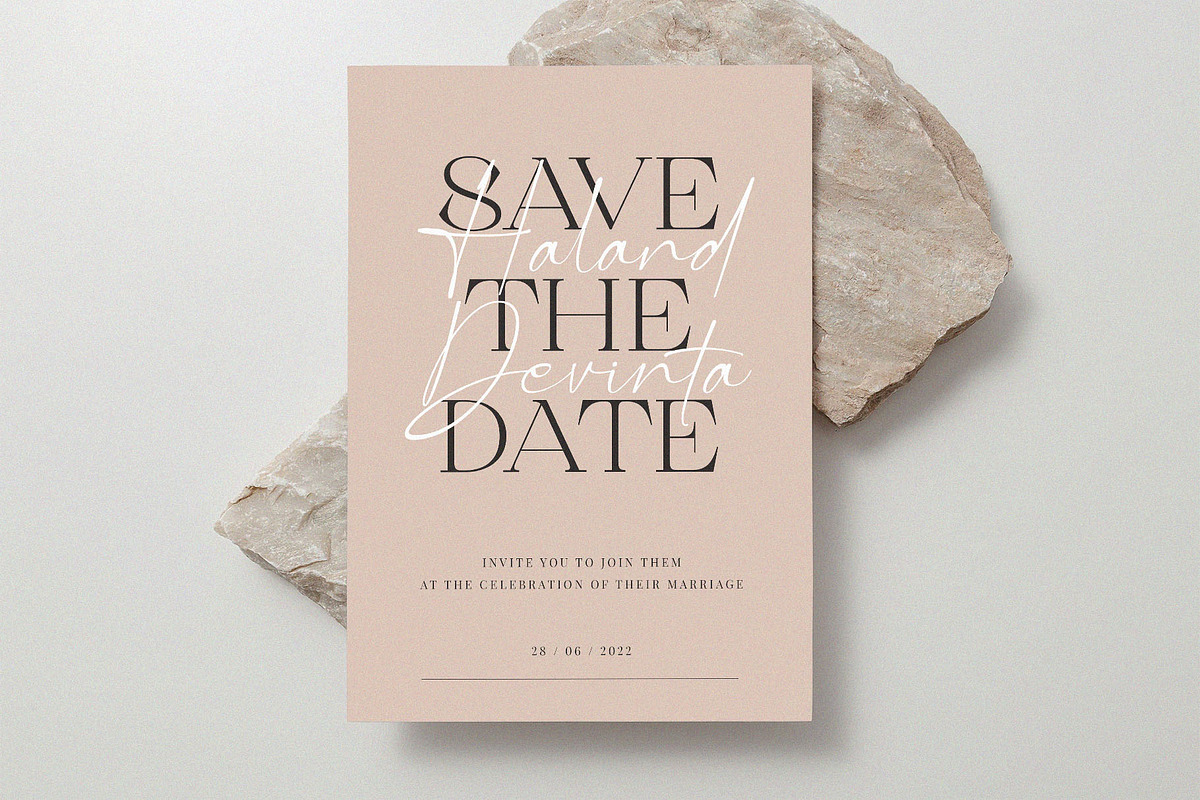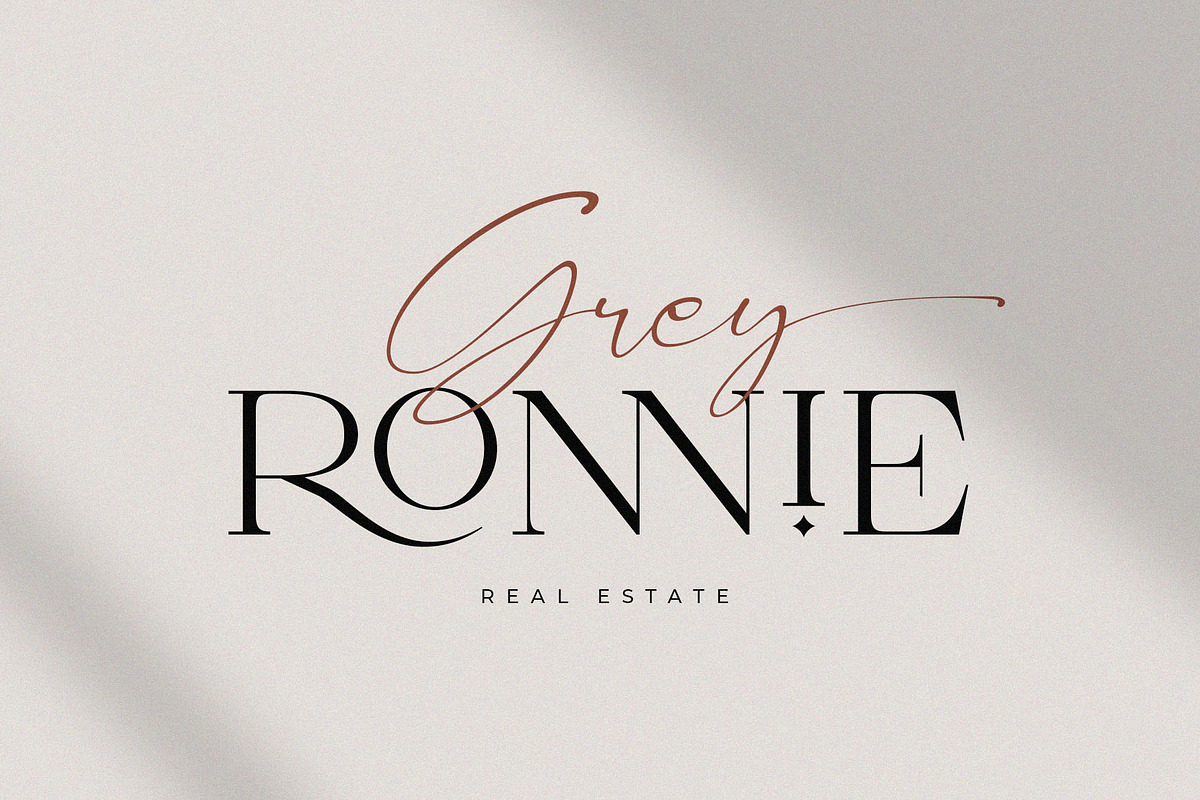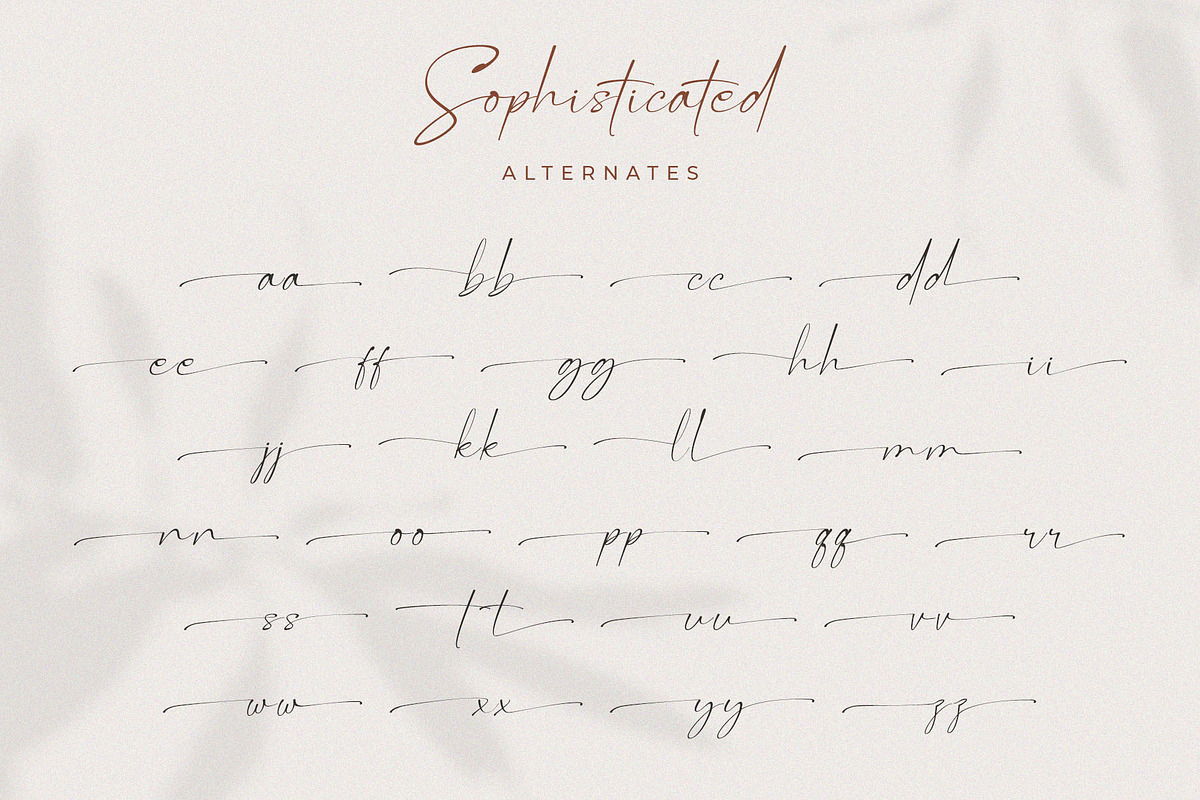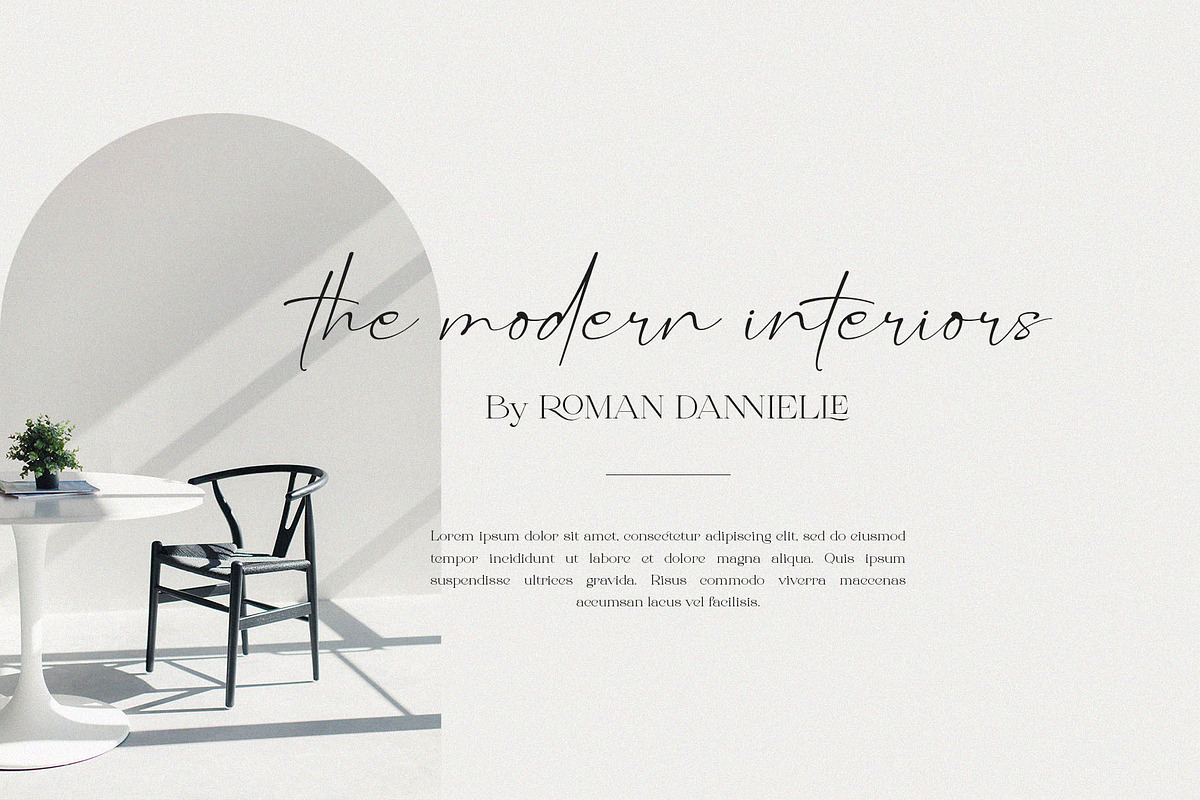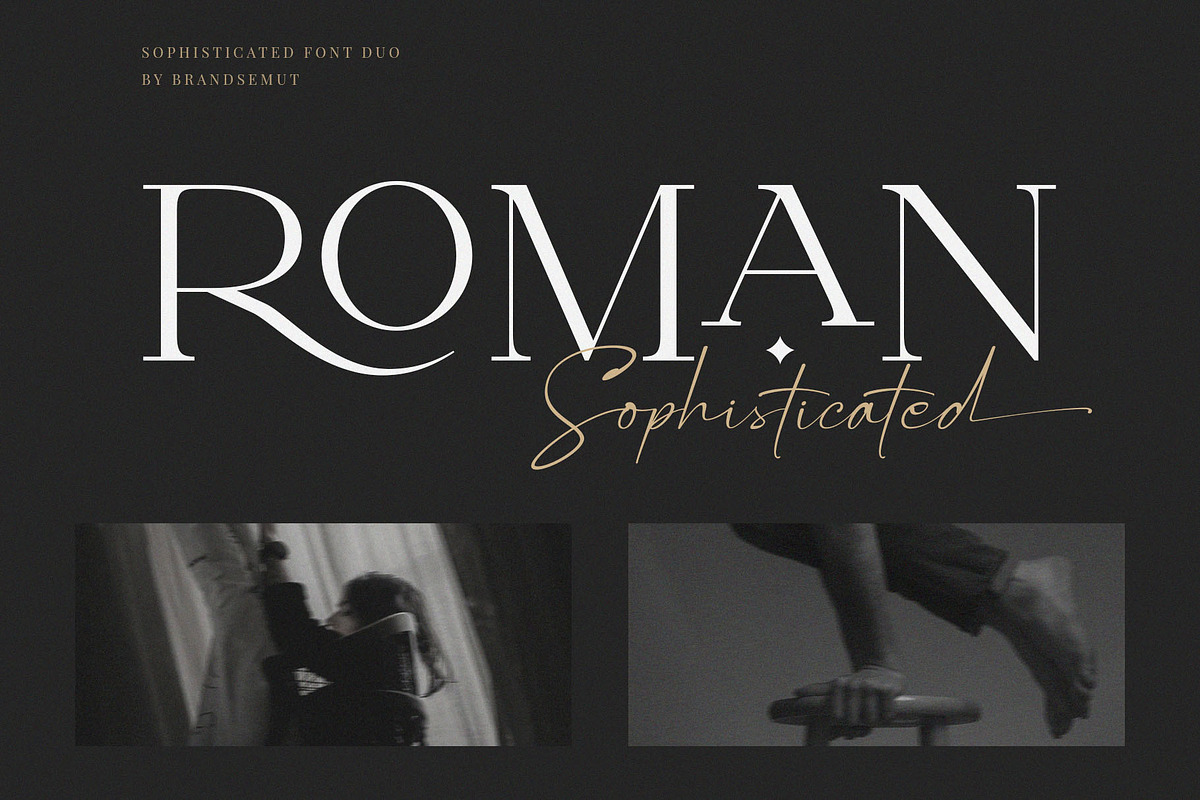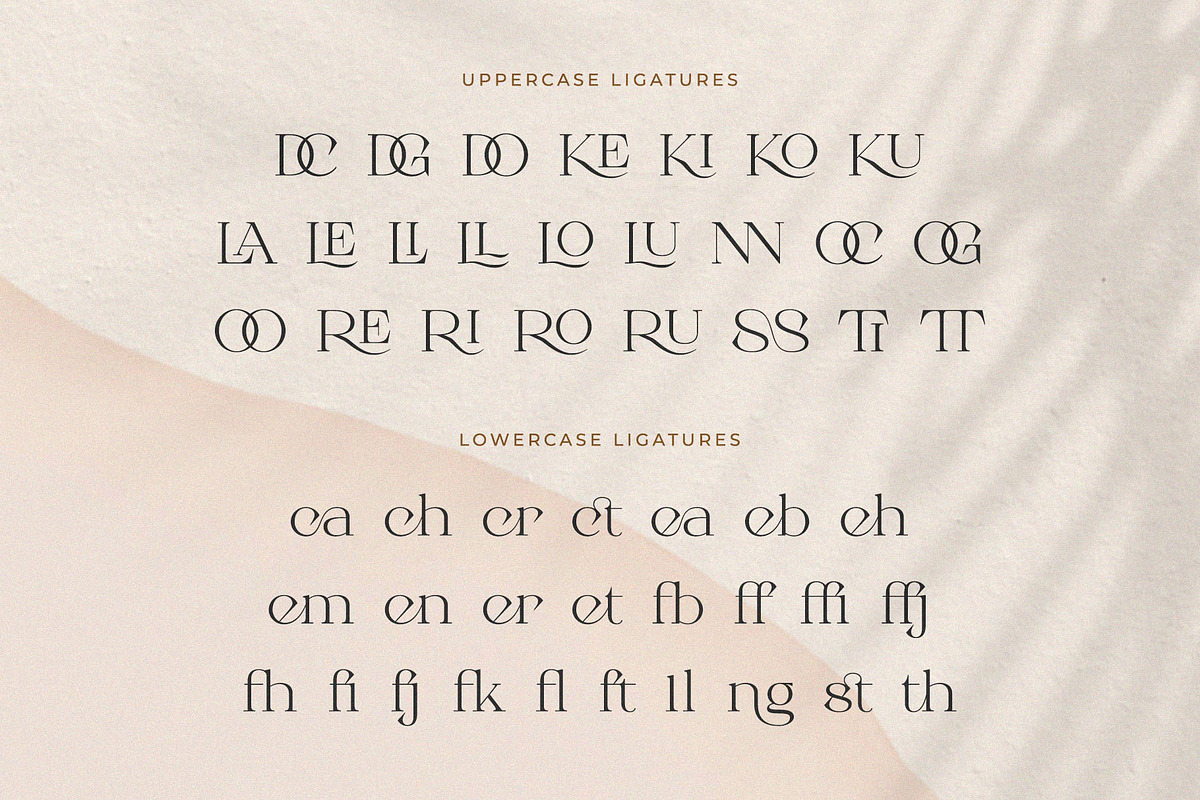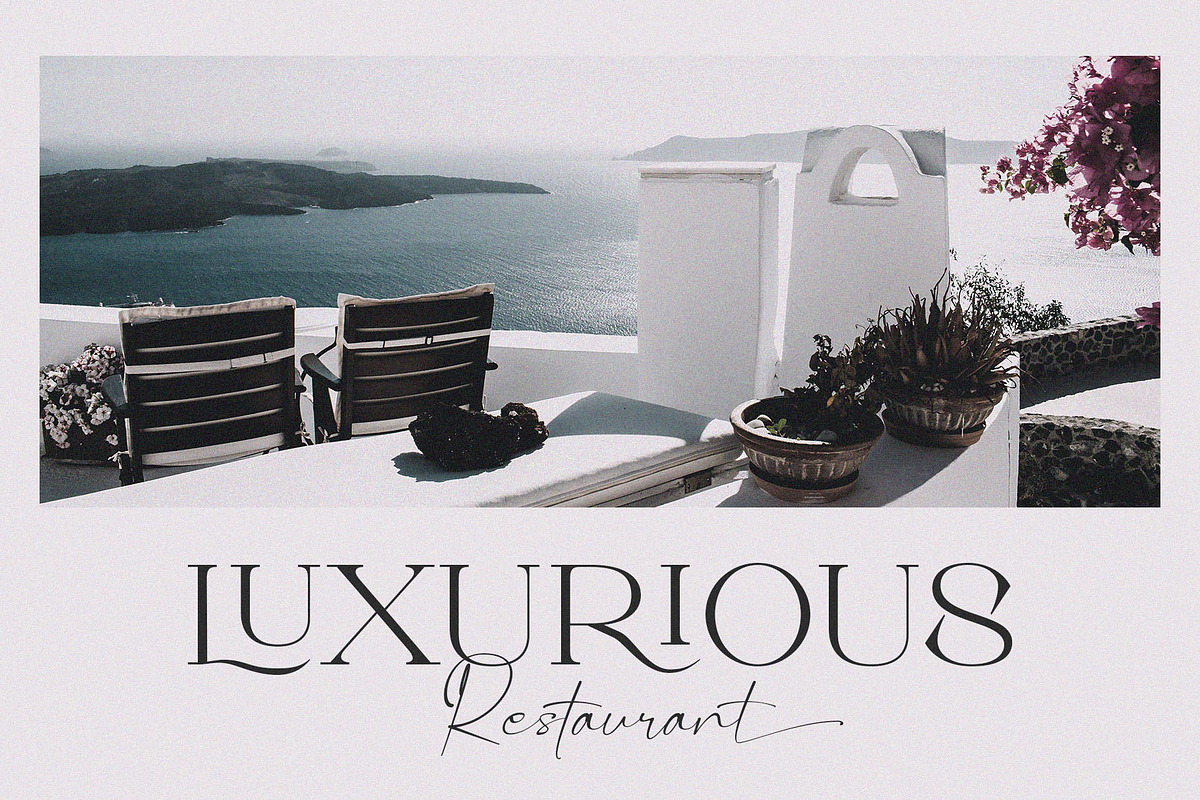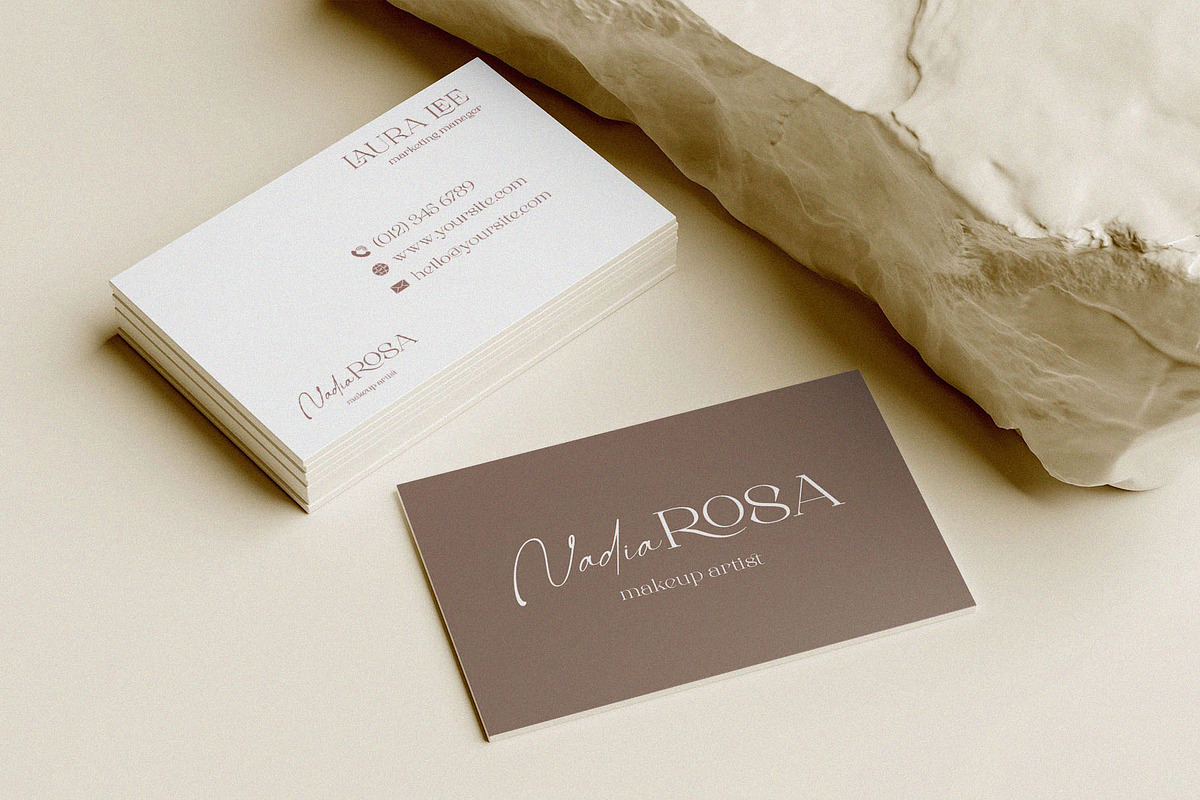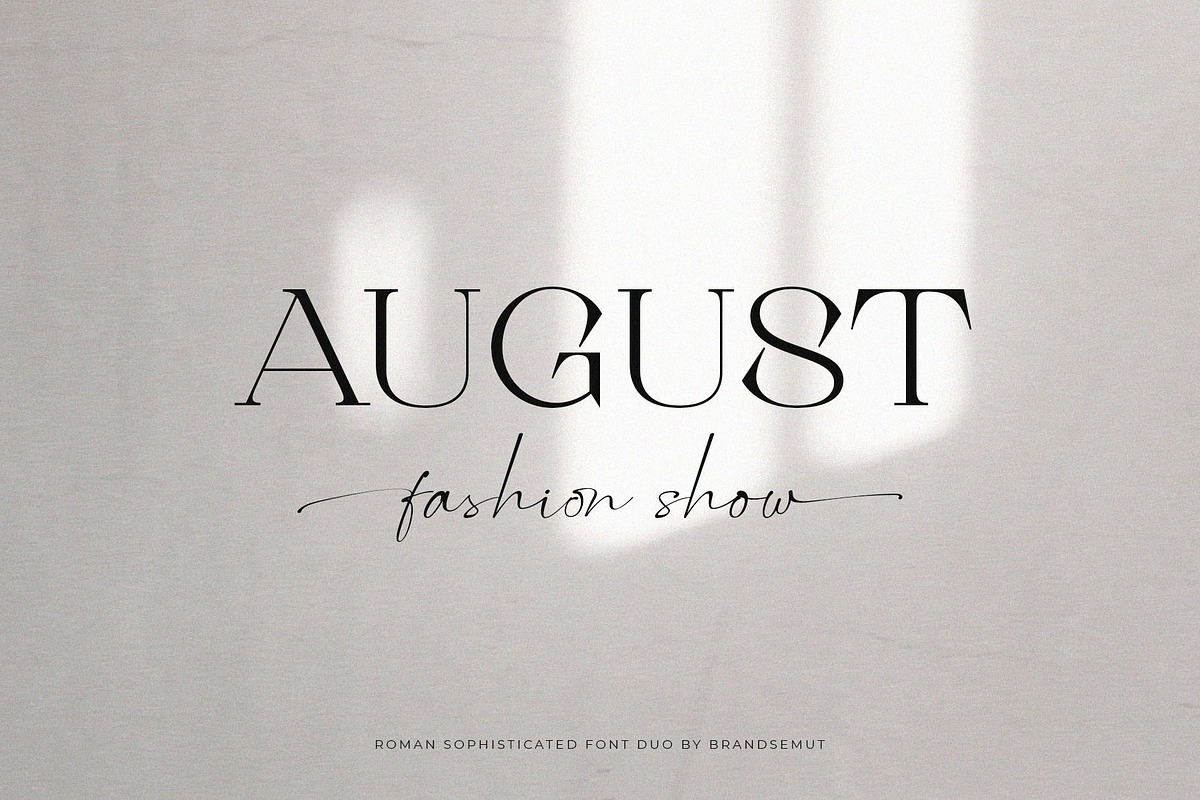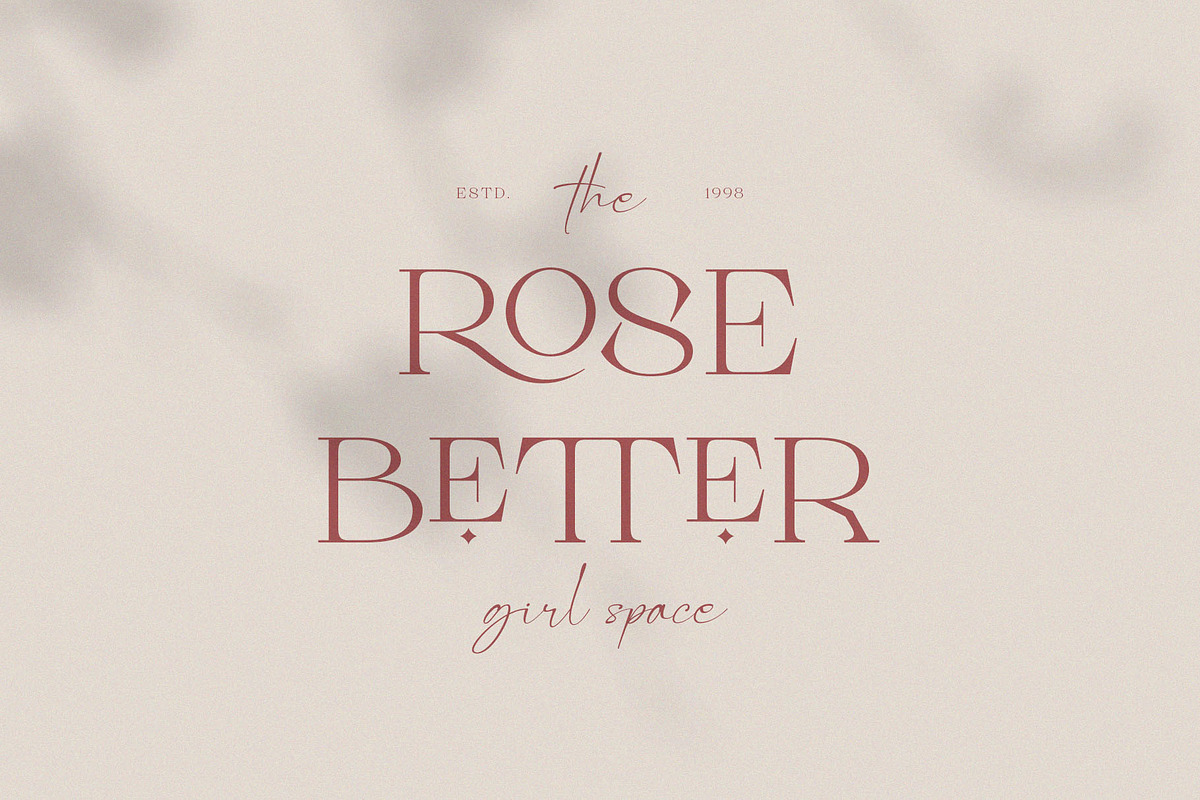
Roman Sophisticated Font Duo
Introducing the new Roman Sophisticated Font Duo. Roman Sophisticated is a luxury and sophisticated font duo that includes a signature script and a serif typeface – already matched up and ready to be used together for your next design! Roman Sophisticated best used as a display for headings, logos, branding, magazines, product packaging and invitations, etc.
Roman Sophisticated was built with OpenType features and includes ligatures, alternates, numbers, punctuation, and it also supports other languages.